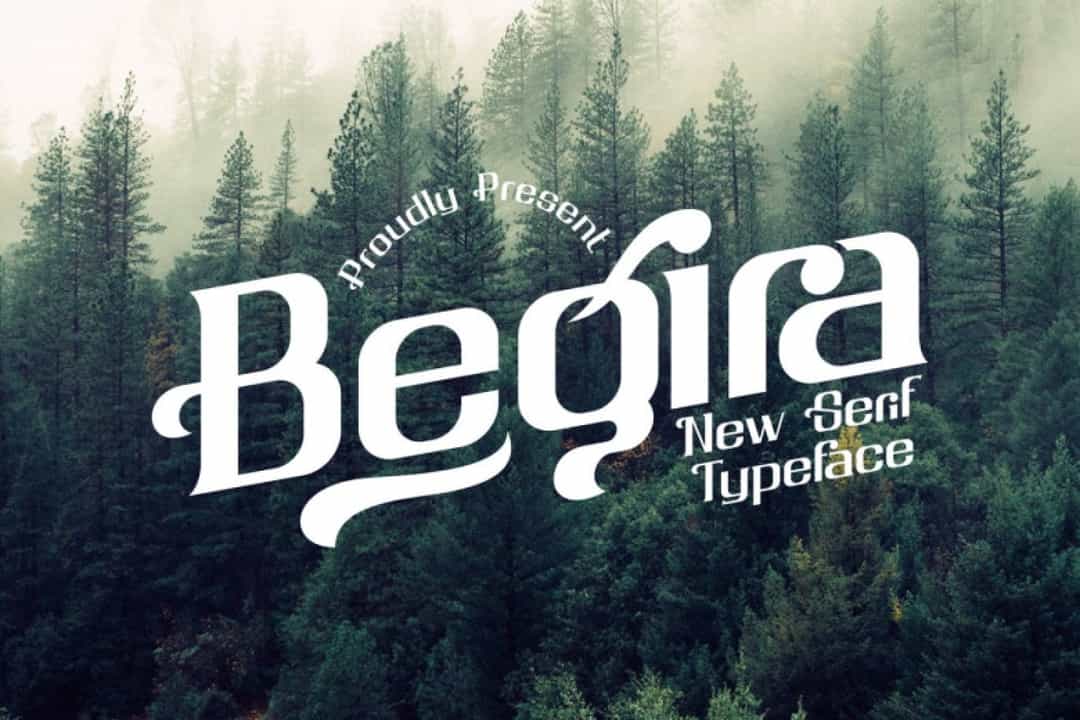
Begira Serif font is the ideal font choice for any modern or elegant project, including branding, stationery design, branding blogs, contemporary invitation card invitation design for advertising card invitations art interior decor book cover titles special occasions such as birthdays weddings etc. or any other contemporary elegant events.